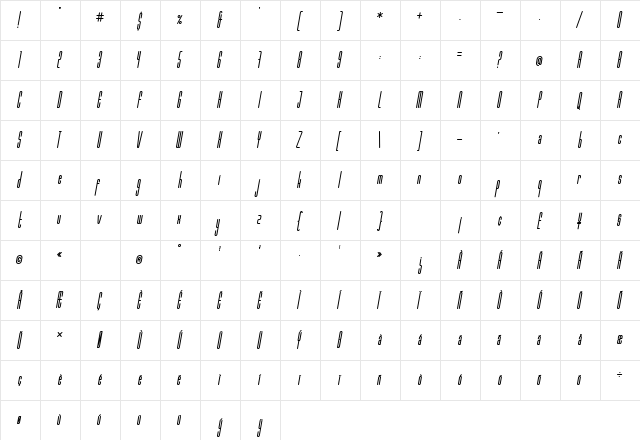
Marbellya Cond Bold Italic Font Preview
| Foundry | Namara Creative Studio |
| Designer | Toni Setiawan | Namara Creative Studio |
Design Context for Marbellya Cond Typeface
Marbellya Cond offers clean, dependable letterforms without strong stylistic allegiance, making it a practical choice for designers who need flexibility. Its italic angle brings a sense of urgency and motion to the letterforms. Its bold stroke weight gives it real presence on the page. Its narrow stance lets it pack a punch even in space-constrained designs.
Pro Tip: Use Marbellya Cond for emphasis, pull quotes, and subheadings where its slanted energy can add rhythm to the layout.